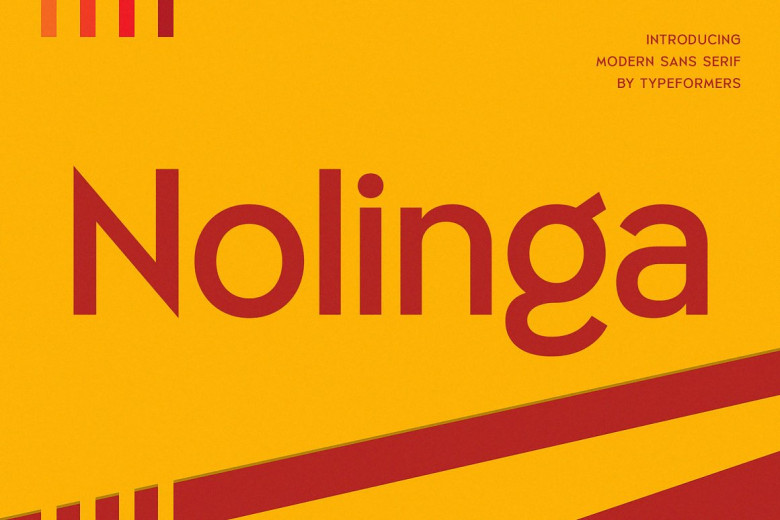
Nolinga Font
Nolinga – Modern Sans-Serif is an elegant and modern font ideal for magazine covers, headings, logos and branding applications.
Nolinga Sans Serif Font